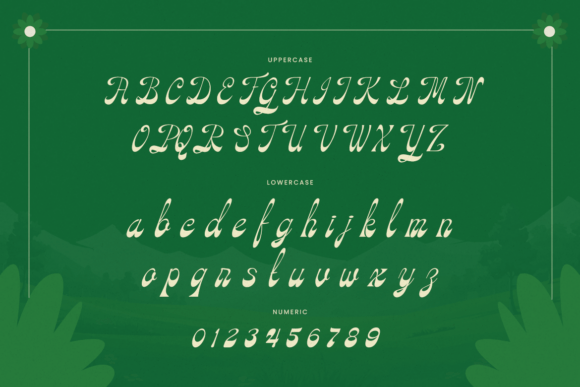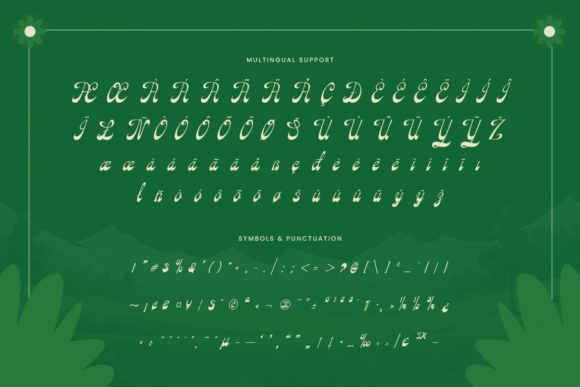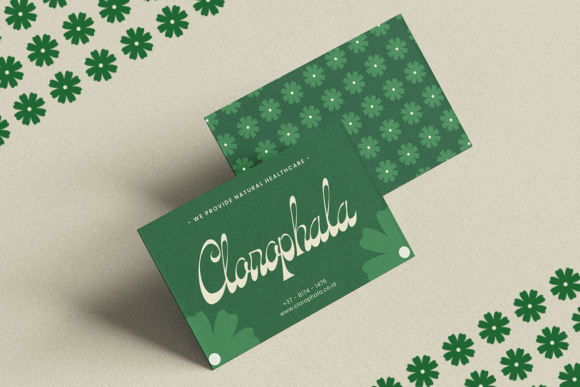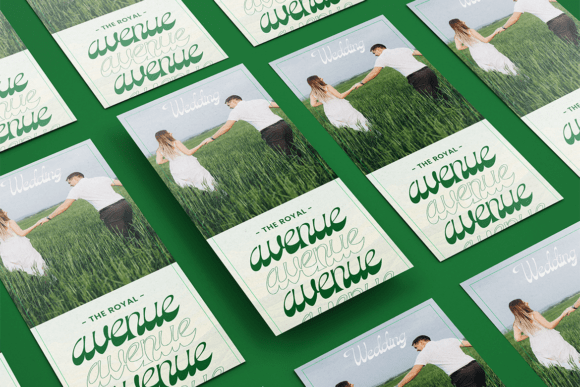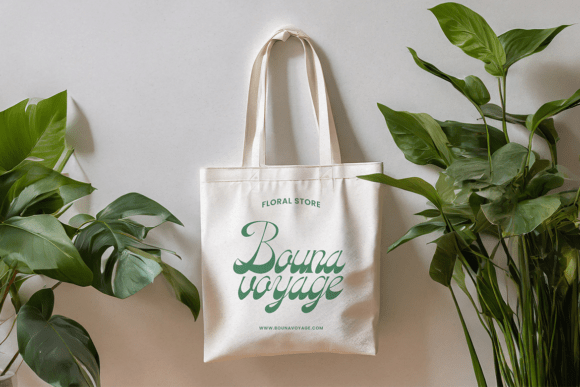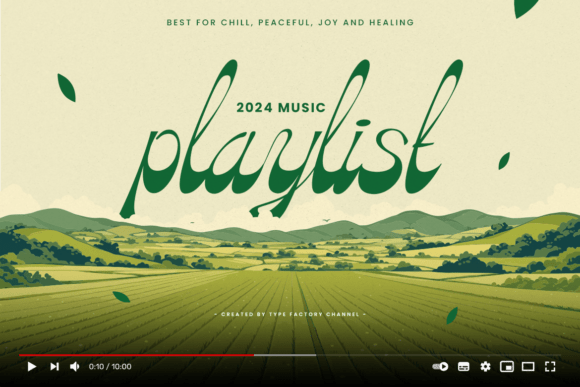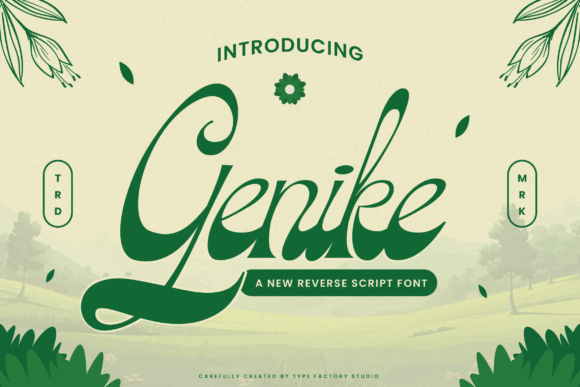
Introducing Genike Font: A Vintage-Inspired Script Typeface
Are you looking for a typeface that adds a touch of nostalgia and elegance to your designs? Look no further than Genike Font, a beautiful vintage-inspired script typeface that combines flowing letterforms with a soft floral aesthetic. In this article, we’ll dive into the features and benefits of Genike, and explore how it can elevate your design projects.
What is Genike Font?
Genike is a distinctive script typeface with a reverse contrast style, characterized by smooth curves, swashes, and decorative details. The design is inspired by traditional calligraphy and handwriting, with a unique stroke contrast that gives it a recognizable look. This typeface is perfect for designers and crafters who want to add a touch of warmth and personality to their work.
Key Features of Genike Font
- Uppercase and Lowercase Letters: Genike features a comprehensive character set, including both uppercase and lowercase letters, numerals, punctuation, and multilingual support.
- Swashes and Decorative Details: The typeface includes beautiful swashes and decorative details, such as flourishes and ornaments, that add a touch of elegance and sophistication.
- Reverse Contrast Style: Genike’s unique reverse contrast style sets it apart from other script typefaces, giving it a distinctive and eye-catching look.
- Multilingual Support: Genike supports multiple languages, making it a versatile typeface for designers working on international projects.
Use Cases for Genike Font
Genike is a versatile typeface that can be used in a variety of design projects, including:
- Wedding Invitations: Add a touch of romance and elegance to your wedding invitations with Genike’s beautiful script letterforms.
- Branding and Packaging: Use Genike to create unique and memorable brand identities, packaging, and labels that stand out from the crowd.
- Logo Design: Genike’s distinctive style makes it perfect for logo design, adding a touch of personality and sophistication to your brand’s logo.
- Editorial Layouts: Use Genike to add a touch of warmth and elegance to your editorial layouts, such as magazines, newspapers, and blogs.
Benefits of Using Genike Font
So why choose Genike Font for your design projects? Here are just a few benefits:
- Unique and Eye-Catching: Genike’s distinctive style sets it apart from other typefaces, making it perfect for designers who want to create unique and memorable designs.
- Versatile: Genike’s comprehensive character set and multilingual support make it suitable for a wide range of design needs.
- Elegant and Sophisticated: Genike adds a touch of elegance and sophistication to any design project, making it perfect for high-end brands and luxury products.
- Easy to Read: Despite its decorative nature, Genike is surprisingly easy to read, making it perfect for body text and editorial layouts.
Genike Font is a beautiful vintage-inspired script typeface that adds a touch of elegance and sophistication to any design project. With its unique reverse contrast style, comprehensive character set, and multilingual support, Genike is perfect for designers and crafters who want to create unique and memorable designs. Whether you’re working on wedding invitations, branding, packaging, logo design, or editorial layouts, Genike is a versatile typeface that is sure to impress.